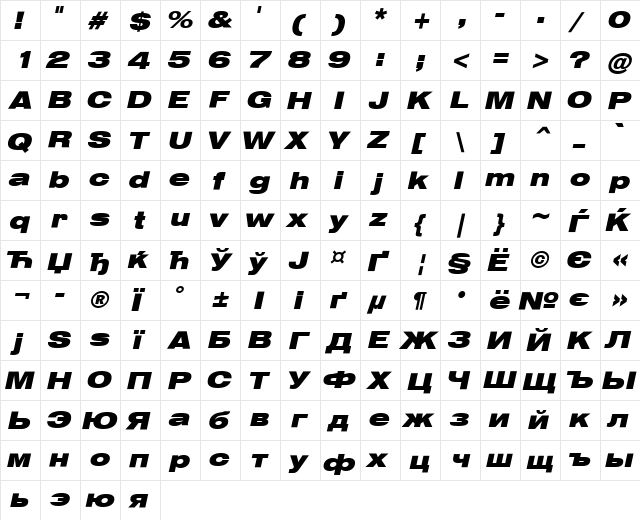
HeliosExtBlack Regular Font Preview
HeliosExtBlack Regular
HeliosExtBlack Regular Font Details
Design Context for HeliosExtBlack Typeface
HeliosExtBlack is a composed and adaptable typeface that performs quietly and consistently across a wide range of design contexts.
Pro Tip: Use HeliosExtBlack in both headline and body roles to test its range before committing to a single application.